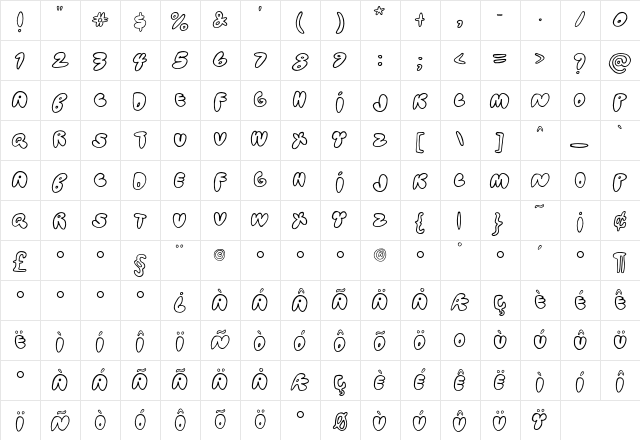
Bubblehouse Regular
Design Context for Bubblehouse Typeface
Bubblehouse trades formality for fun, with bouncy, characterful letterforms that bring warmth and energy to any project.
Great for children's books, toy packaging, family event branding, and casual consumer-facing design.
Font Pairing: Pairs well with a rounded or humanist sans for body copy, maintaining the friendly tone without relying on Bubblehouse to carry extended reading.
Pro Tip: Avoid using Bubblehouse for long passages of text — it works best for headlines, labels, and short calls to action.